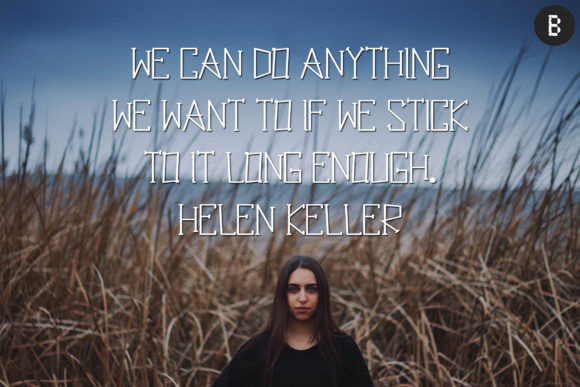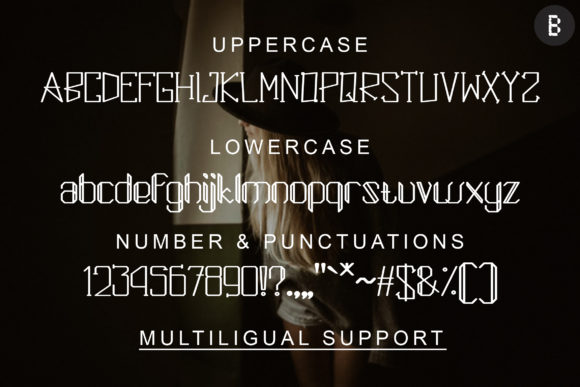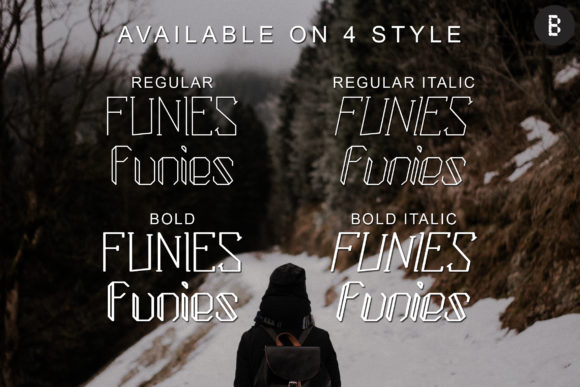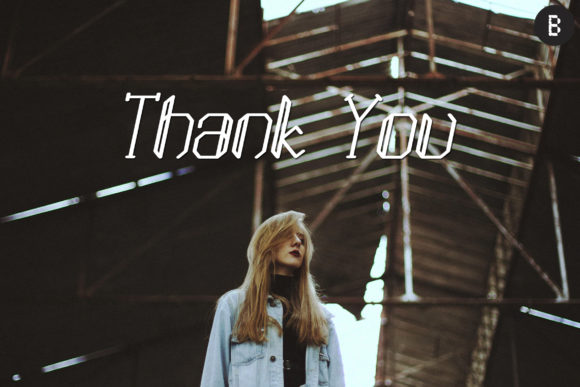
The Futuristic Charm of Funies Font: A Designer’s Delight
I still remember the design project that led me to discover the amazing Funies Font. I was working on a futuristic-themed branding campaign for a tech startup, and I was struggling to find the perfect font that would convey their innovative and modern vibe. That’s when I stumbled upon Funies, and it instantly became my go-to choice. In this article, I’ll share my experience with Funies Font, its features, and how to make the most of it in your designs.
An Honest Review of Funies Font
What I Love About Funies Font
• Futuristic yet readable: Funies Font strikes the perfect balance between being futuristic and readable, making it perfect for a wide range of design projects.
• Versatile: This font is incredibly versatile and can be used for various design ideas, from branding and advertising to packaging and digital media.
• 💻 OpenType features: Funies Font comes with a range of OpenType features, including stylistic alternates, ligatures, and glyphs, which can be used to add an extra layer of creativity to your designs.
While Funies Font is an excellent choice for many design projects, there are a few quirks to be aware of:
• 🤔 Limited use in body text: Due to its futuristic and sleek design, Funies Font might not be the best choice for body text, especially for longer pieces of content.
• ⚠️ Glyph compatibility: Some glyphs and special characters might not work seamlessly with all design software or platforms.
A Practical Guide to Using Funies Font
The Design Story Behind Funies Font
Funies Font was designed with the goal of creating a futuristic yet readable font that would cater to the needs of modern designers. The font’s creator drew inspiration from sci-fi movies, futuristic architecture, and cutting-edge technology to craft a unique and innovative typeface.
Q: What type of designs is Funies Font best suited for?
A: Funies Font is versatile and can be used for a wide range of design projects, including branding, advertising, packaging, and digital media.
Q: Is Funies Font compatible with all design software?
A: Funies Font is compatible with most design software, but some glyphs and special characters might not work seamlessly with all platforms.